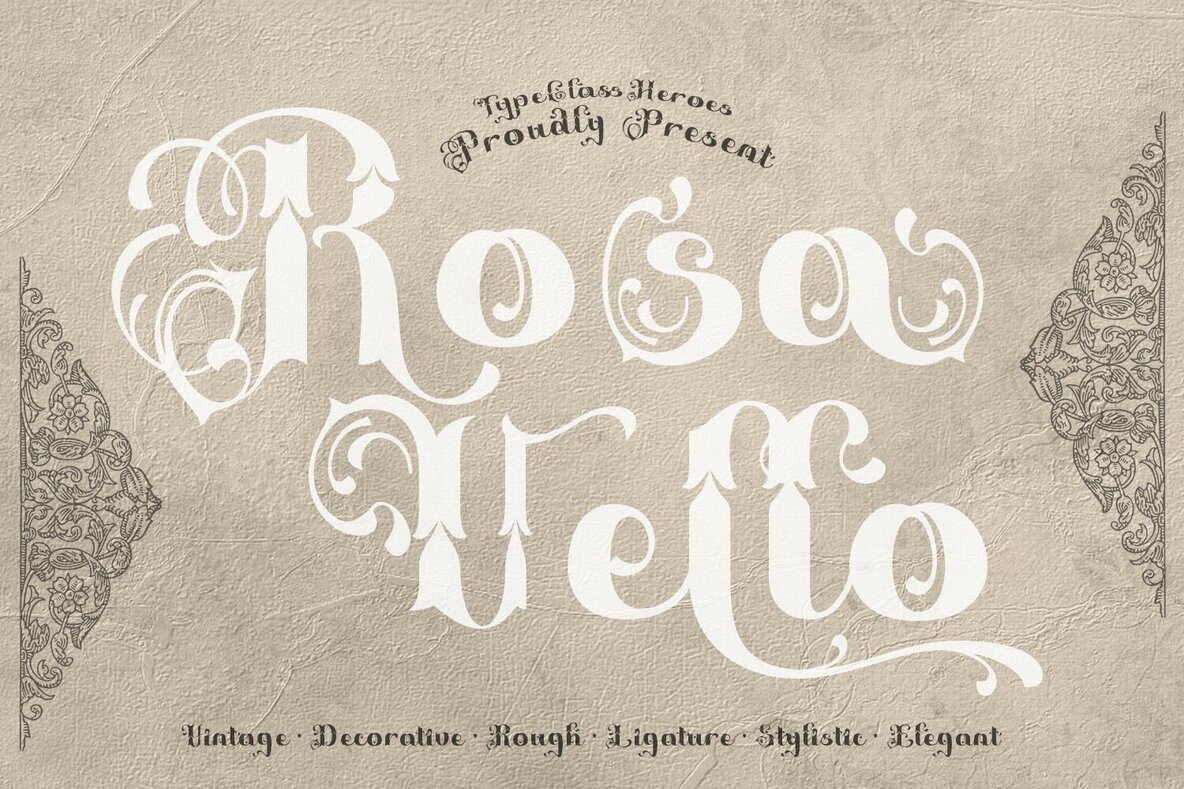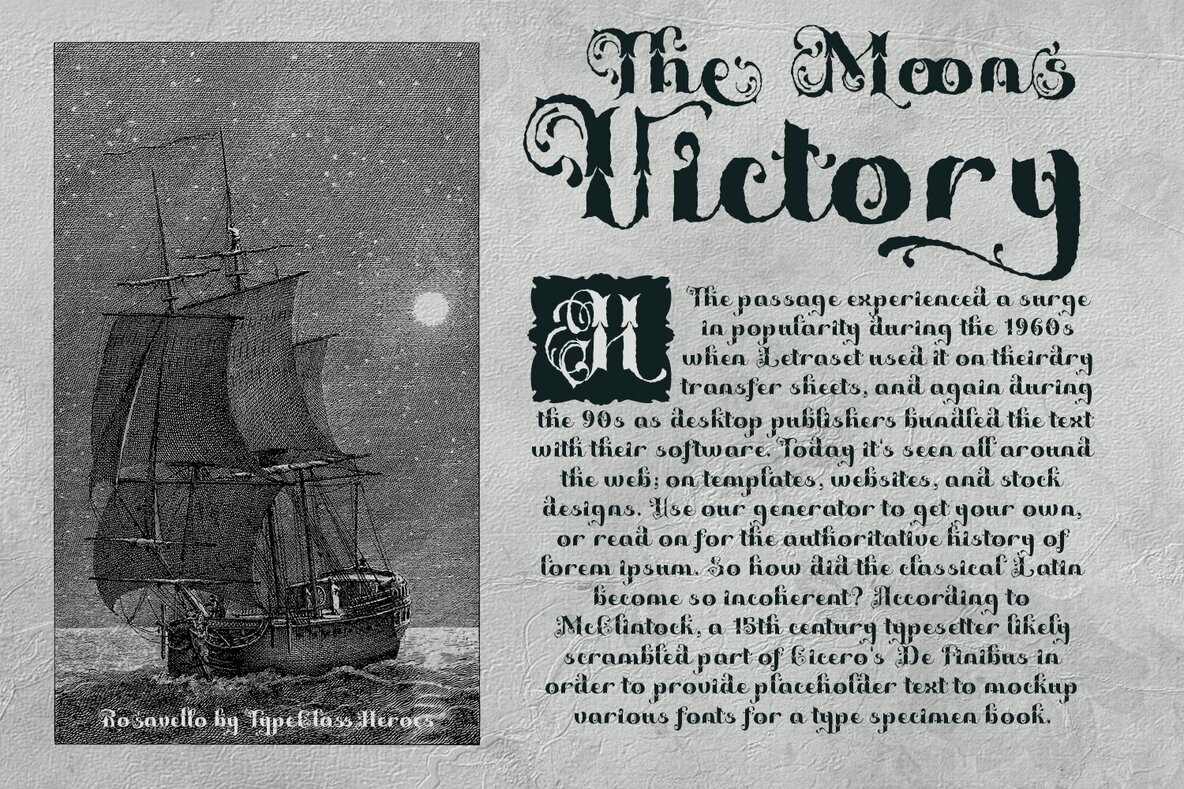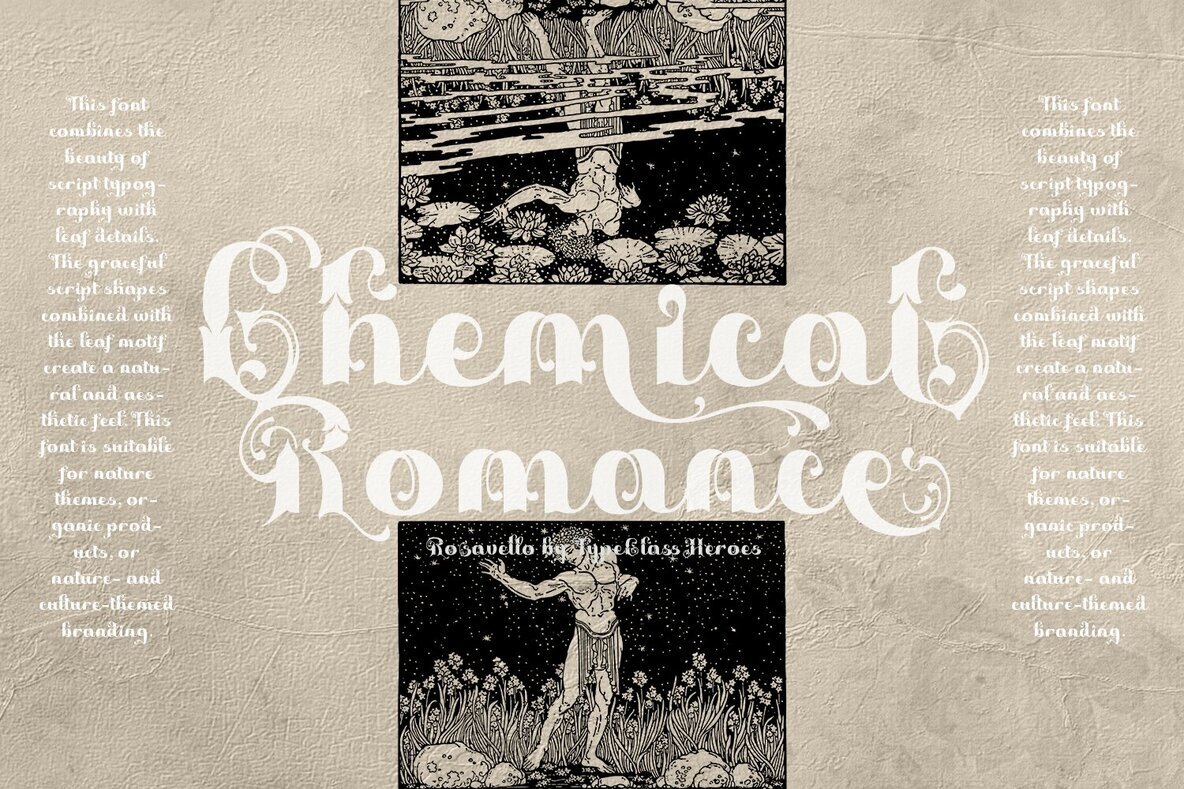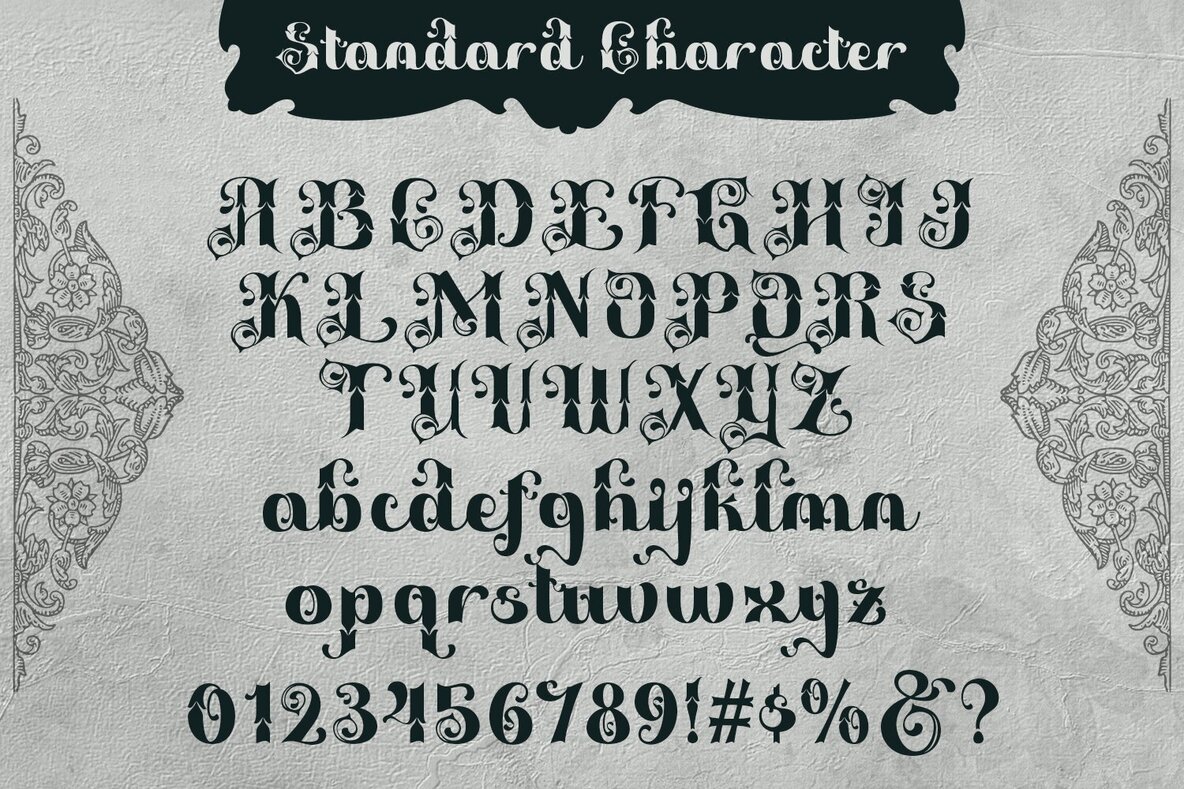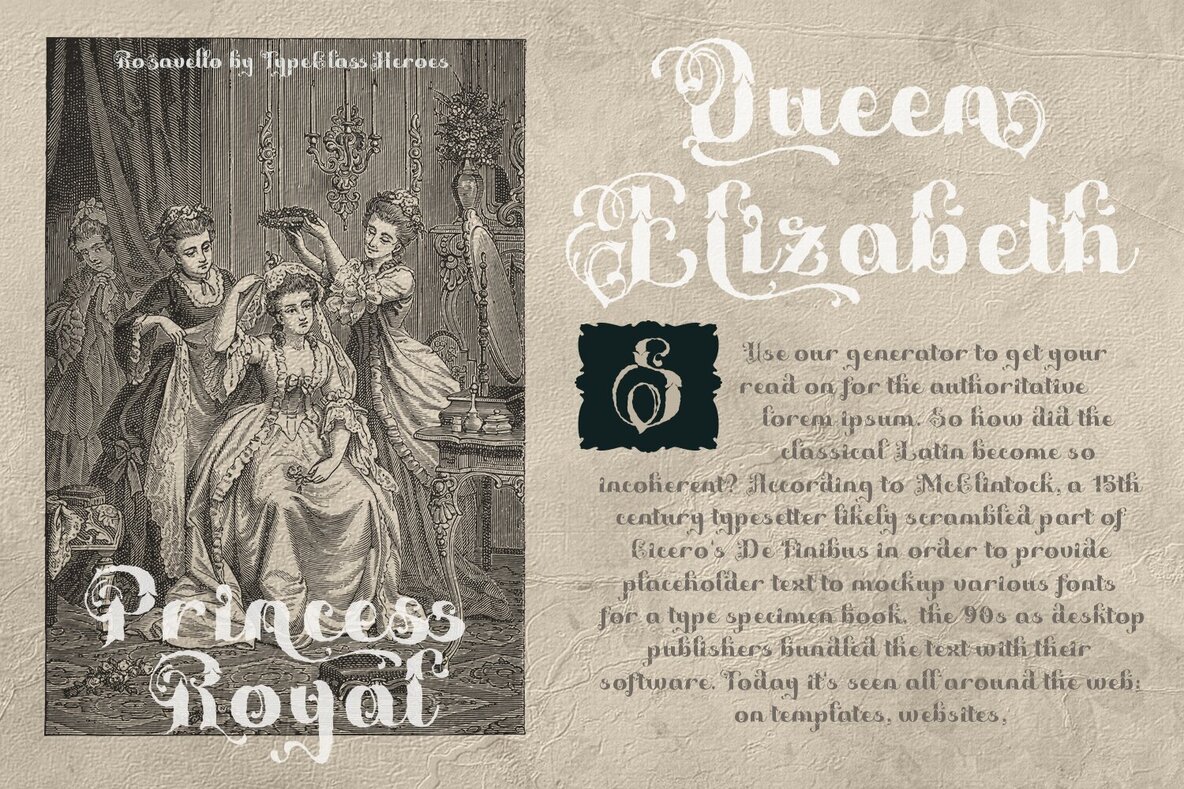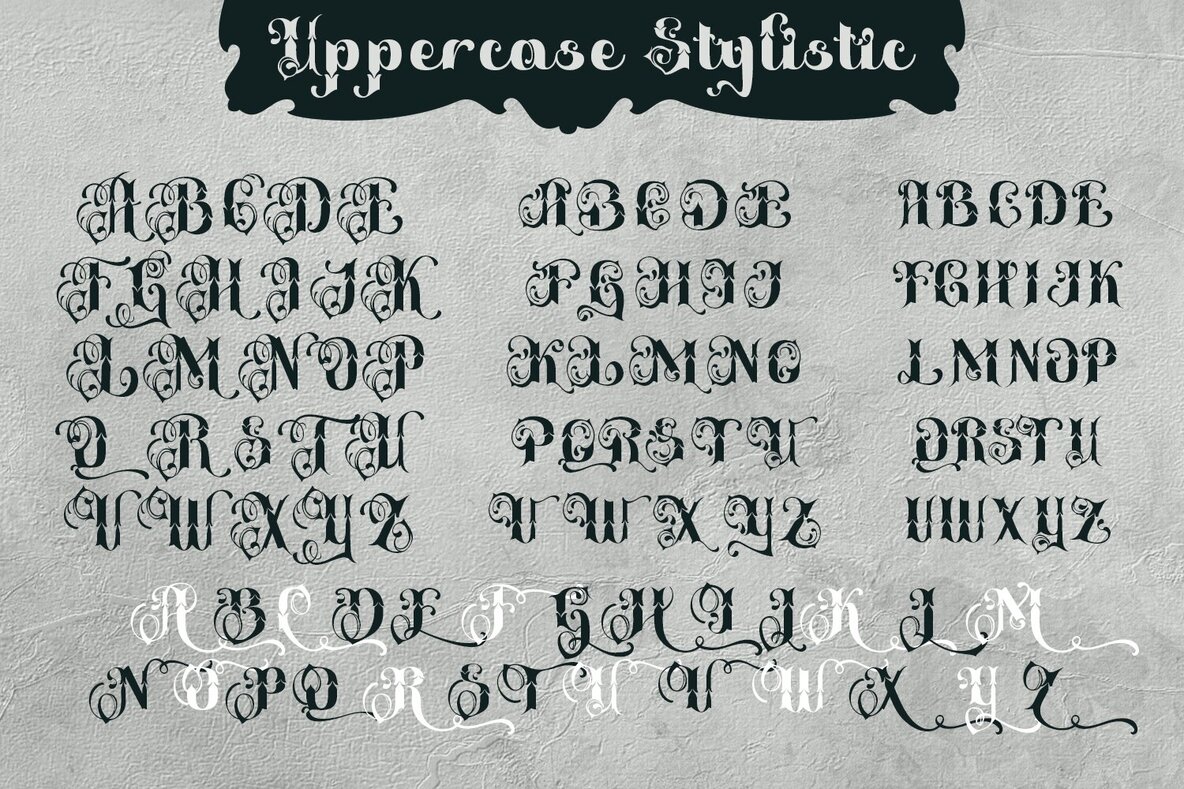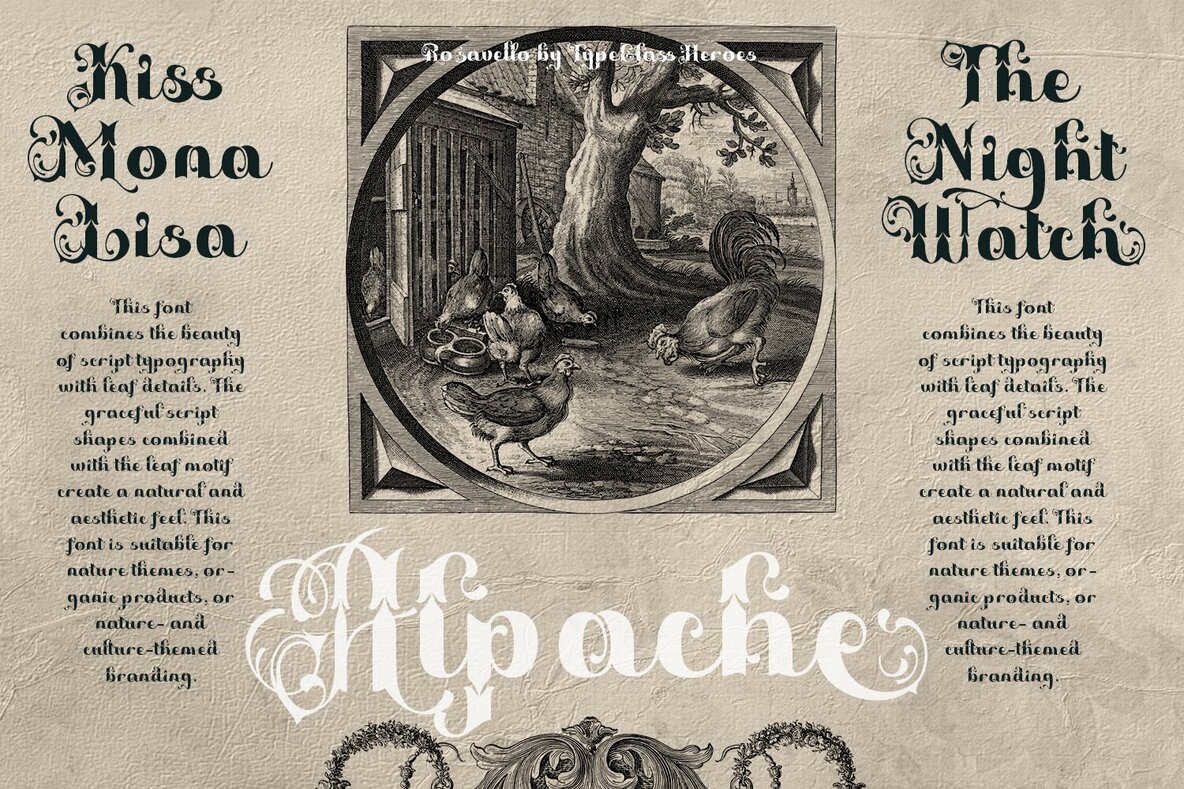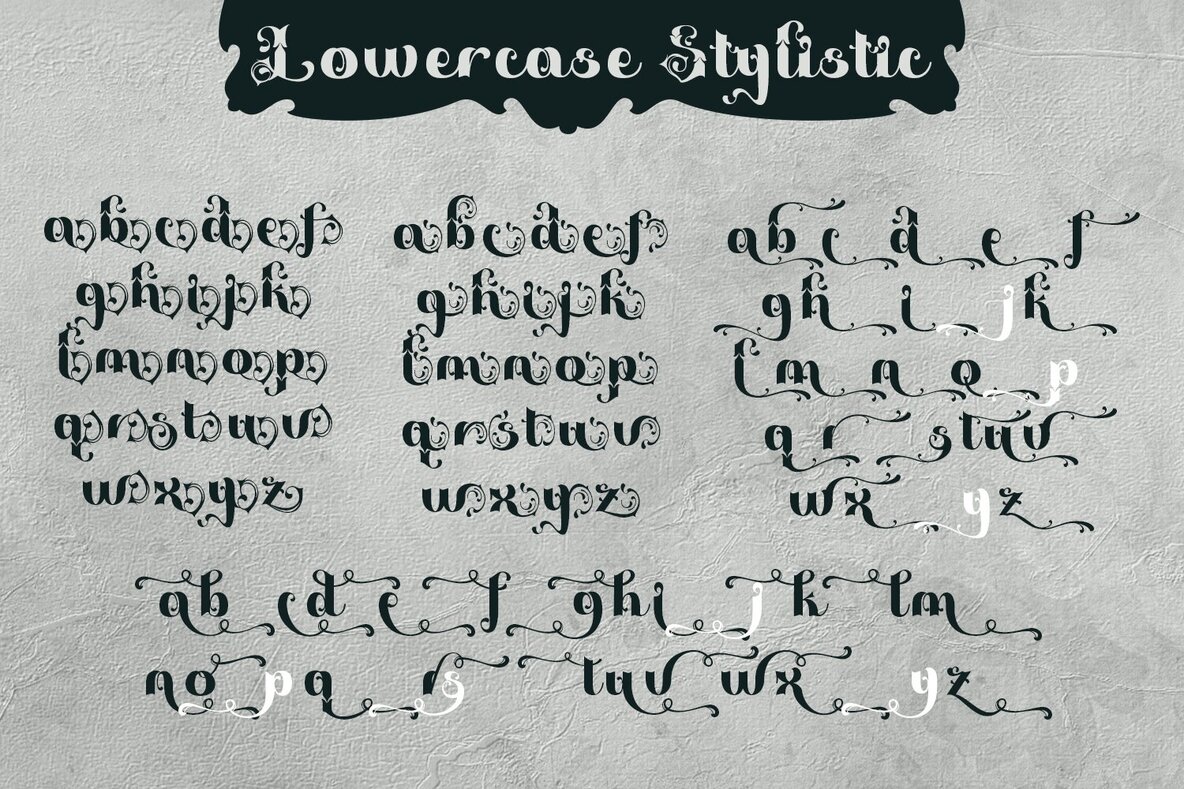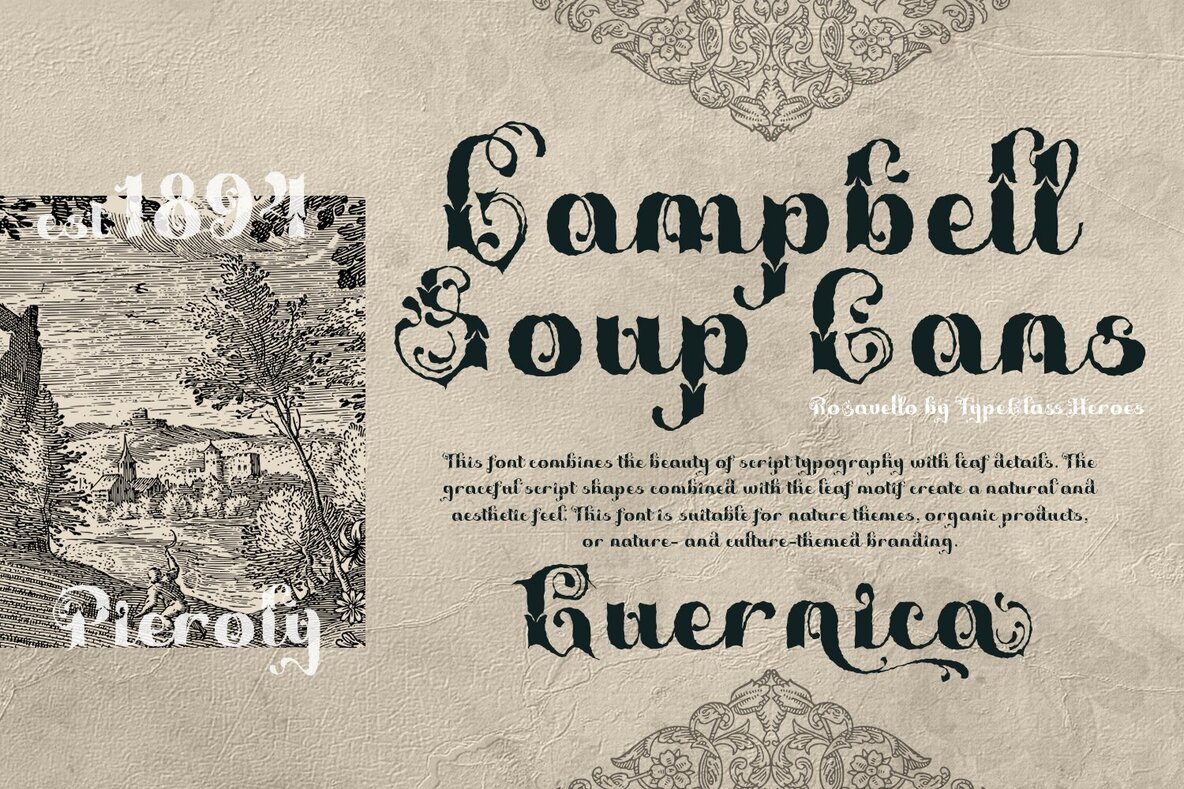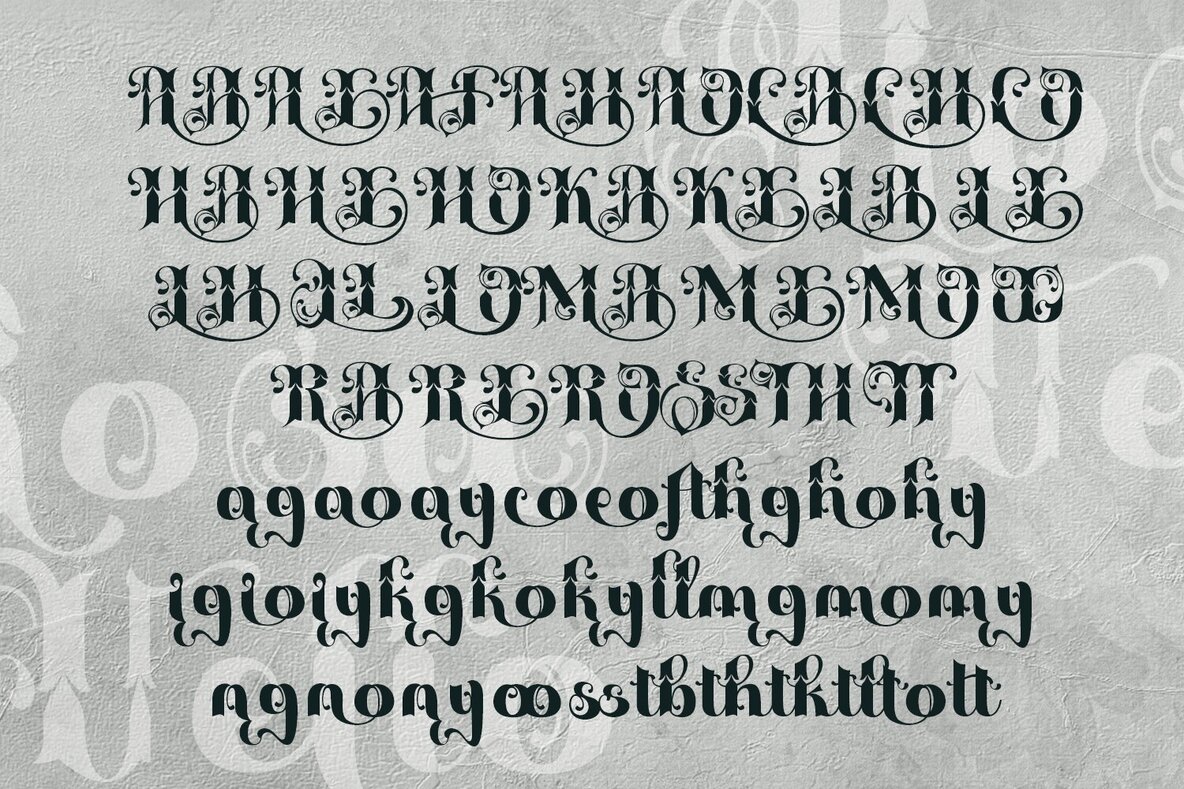
Rosavello Font
Rosavello brings together refined script typography and subtle leaf details to create an organic, visually striking design. The graceful lettering and natural motifs work in harmony, offering a font that stands out in nature-inspired branding and design projects. Rosavello adapts seamlessly to a range of uses, from brand logos to product packaging. Its combination of script style and botanical elements offers a unique blend of elegance and nature, suitable for projects that require a touch of authenticity and sophistication—whether for digital platforms or printed media.Rosavello Font: Script Elegance with Leaf Details